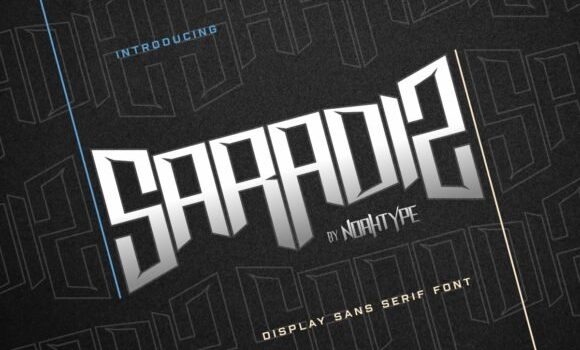
saradiz
Saradiz Font – Free Download Introduction to Saradiz Font Saradiz is a unique modern sans serif display font with awesome style characters. 📸 Preview Gallery 6 images 📌 Product Name Saradiz Font 👤 Author NoahType 📂 Category Explore ⬇️ Download